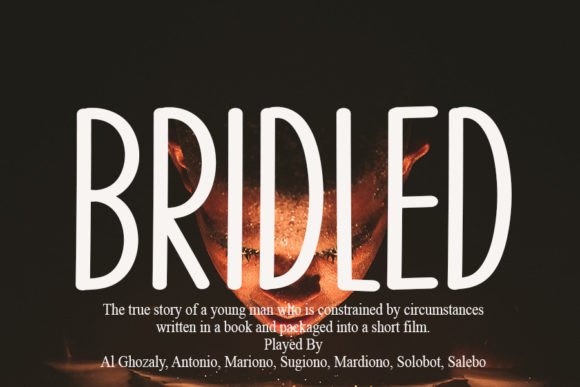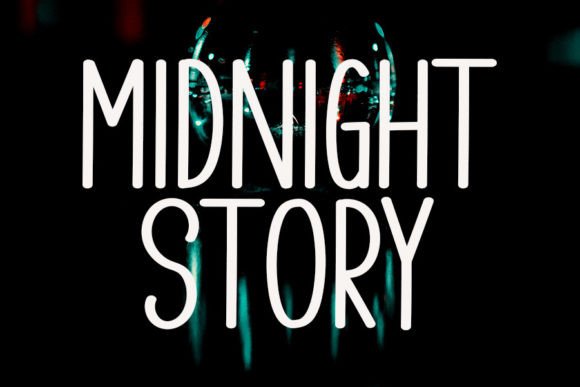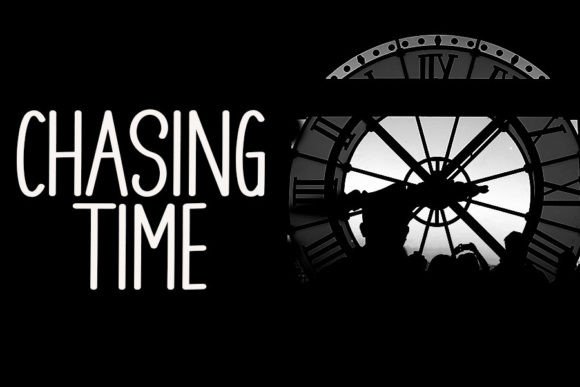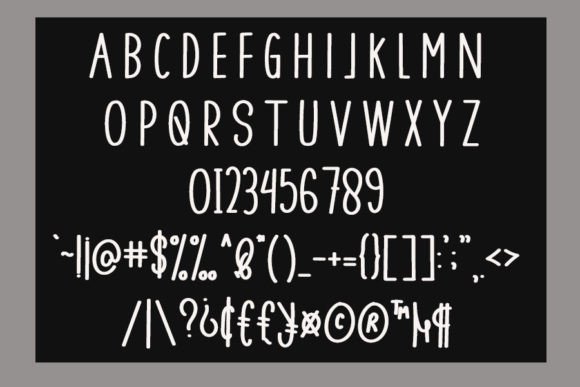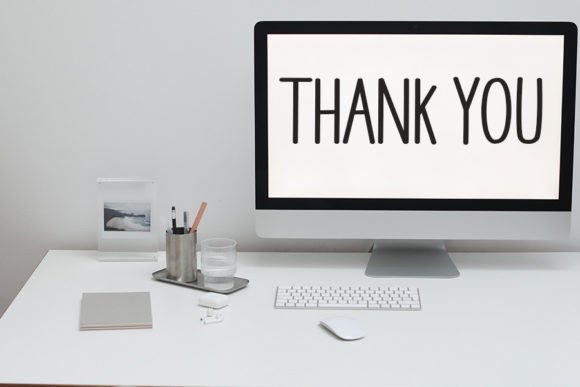
Remember the moment when you were working on a creative project and couldn’t find the perfect font to bring it to life? You spent hours browsing through design resources, searching for that elusive perfect match. Well, we’ve got some great news for you! Introducing the One Option Font, a high-quality, friendly handwritten font designed to make your creative projects shine.
This versatile font is carefully crafted to become a true favorite among designers. With its unique style and elegant touch, it’s the perfect addition to your font library. Whether you’re working on a personal project or a commercial design, the One Option Font is sure to impress. And the best part? It’s available for a free download, complete with a transparent background, making it easy to integrate into your designs.
- Unique, modern font style with a transparent background for seamless integration into designs
- Perfect for use in digital designs, such as logos, graphics, and typography-based creative projects
Honest Review: One Option Font
As a designer, I’m always on the lookout for high-quality design resources to elevate my creative projects. Recently, I stumbled upon the One Option Font, and I was impressed with its simplicity and versatility.
What works well about the One Option Font is its clean and modern design. ✨ The font is perfect for creating a professional and sleek look, making it ideal for logos, business cards, and other marketing materials. The font also comes in a free download version, which is a huge plus for designers on a budget.
Here are some key features that I like about the One Option Font:
- High-quality design that is perfect for professional projects
- Works well for logos, business cards, and marketing materials
However, there are some limitations to consider. ⚠️ The font is only available in a limited number of weights, which may not be ideal for designers who need a wide range of font weights for their project. Additionally, the font may not be suitable for projects that require a lot of texture or detail.
Overall, I’m impressed with the One Option Font and would definitely recommend it to designers who are looking for a high-quality, free design resource. With a little creativity, this font can be used in a variety of creative projects, from logos to web design.
One Option Font is perfect for use in logos, branding materials, and other design elements where a high-quality, unique font is needed.